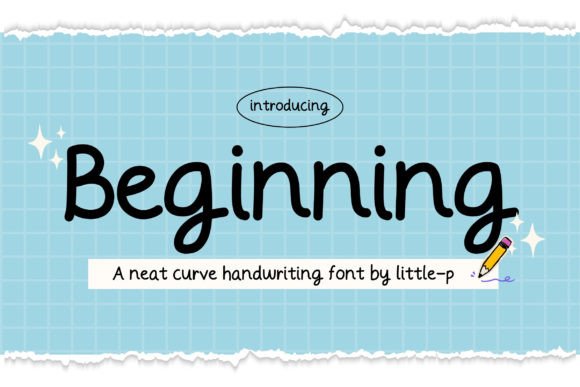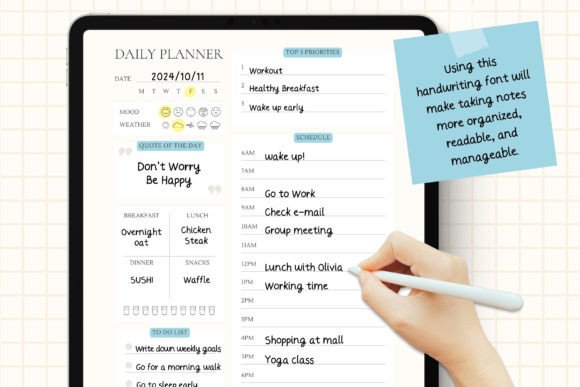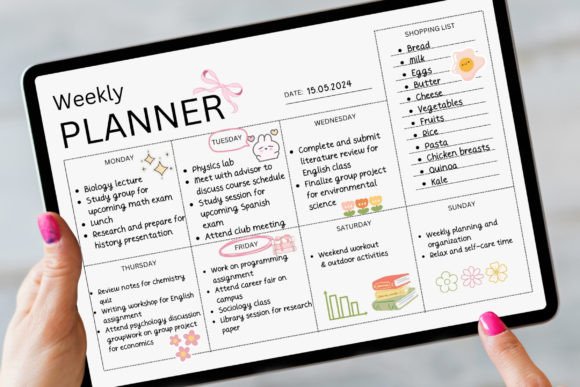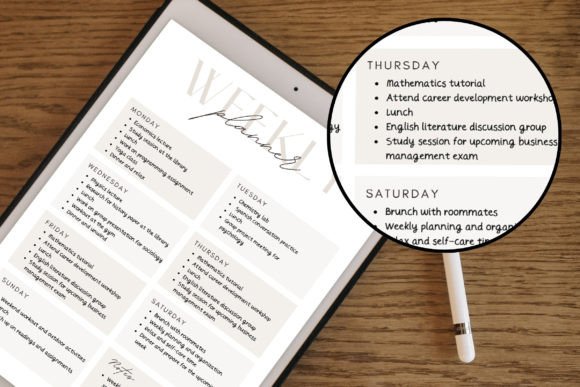
Beginning Font: Cute Handwritten Font for Digital Planning & Notes
About the Beginning Font
Crafted with precision, the Beginning Font is ready to bring your ideas to life. Introducing Beginning – a tidy and curved handwriting font designed to provide a friendly and easy-to-use experience. With its soft and inviting curves, this font adds a gentle touch to your projects, making it perfect for various applications such as note-taking, digital planning, journaling, educational notes, Goodnotes, greeting cards, quotes, T-shirts, branding, and more.
Beginning Font Usage Examples
Beginning Font Example